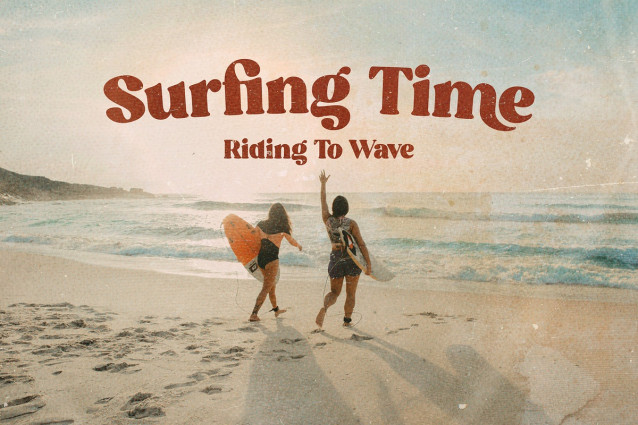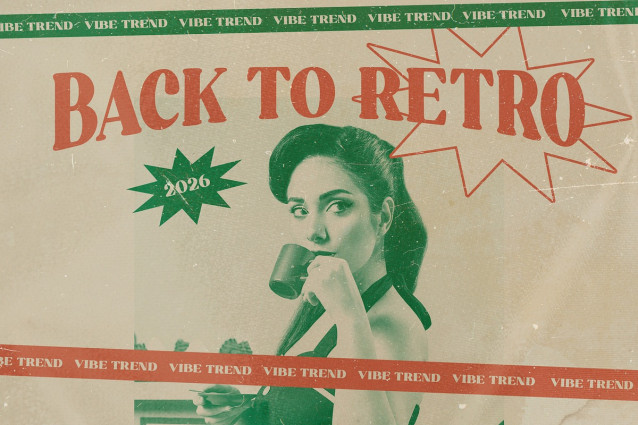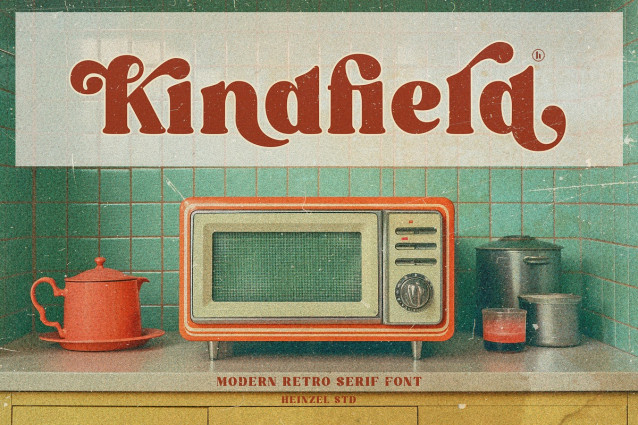
Kindfield Font
Kindfield Font is a retro serif font inspired by mid-century design and vintage advertising aesthetics. Featuring soft curves, bold serifs, and charming letterforms, Kindfield delivers a warm, nostalgic feel with a modern touch. Its distinctive personality makes it perfect for logos, packaging, posters, branding, headlines, apparel, and editorial designs that aim to stand out with timeless character. Kindfield blends classic retro vibes with contemporary usability, making it a versatile choice for creative projects that need both style and readability.